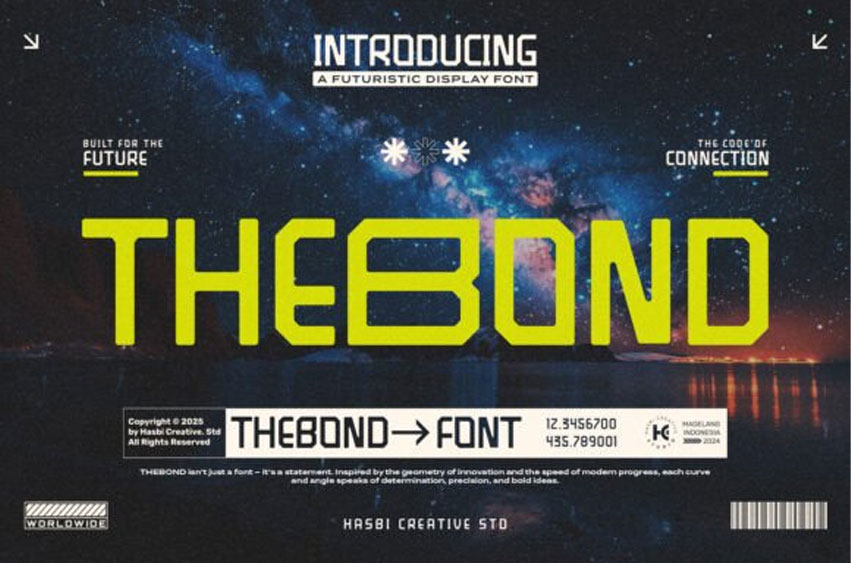
Thebond Font isn’t just a font — it’s a statement. Inspired by the geometry of innovation and the speed of modern progress, each curve and angle speaks of determination, precision, and bold ideas.
This font features uppercase and lowercase letters, making it versatile for both impactful headlines and stylish body text.